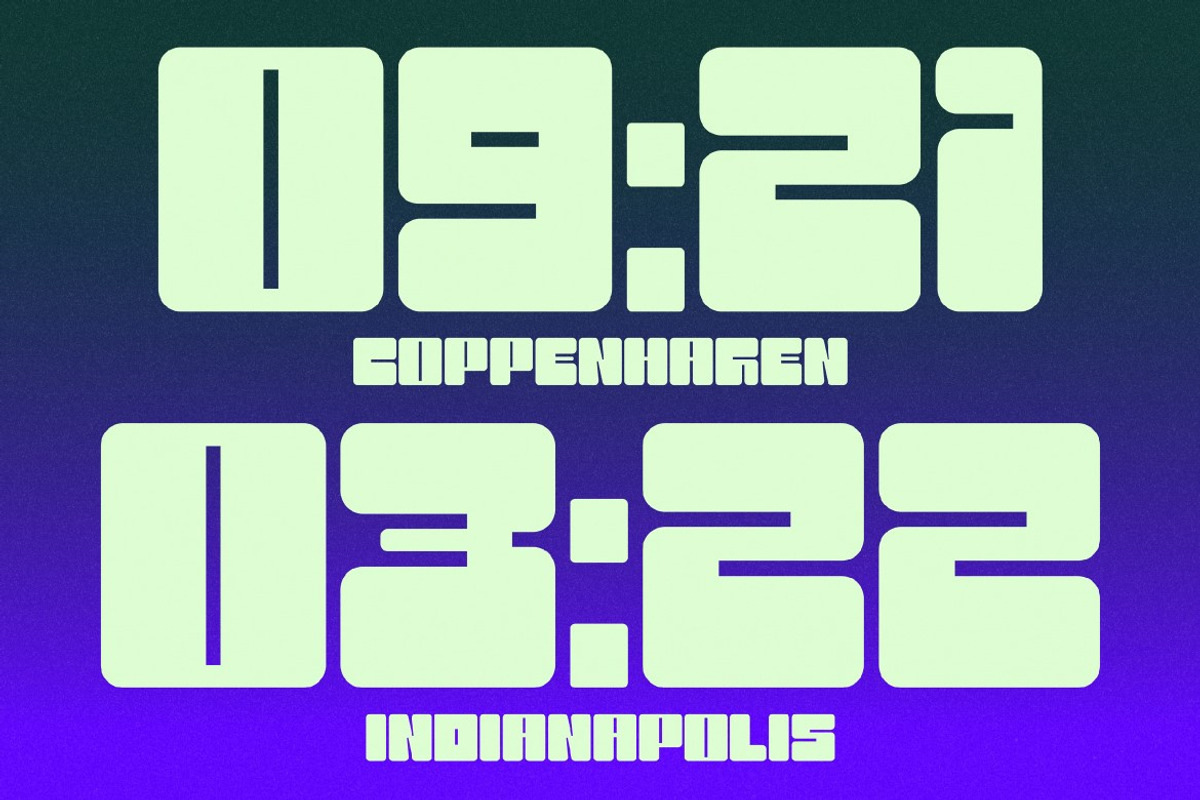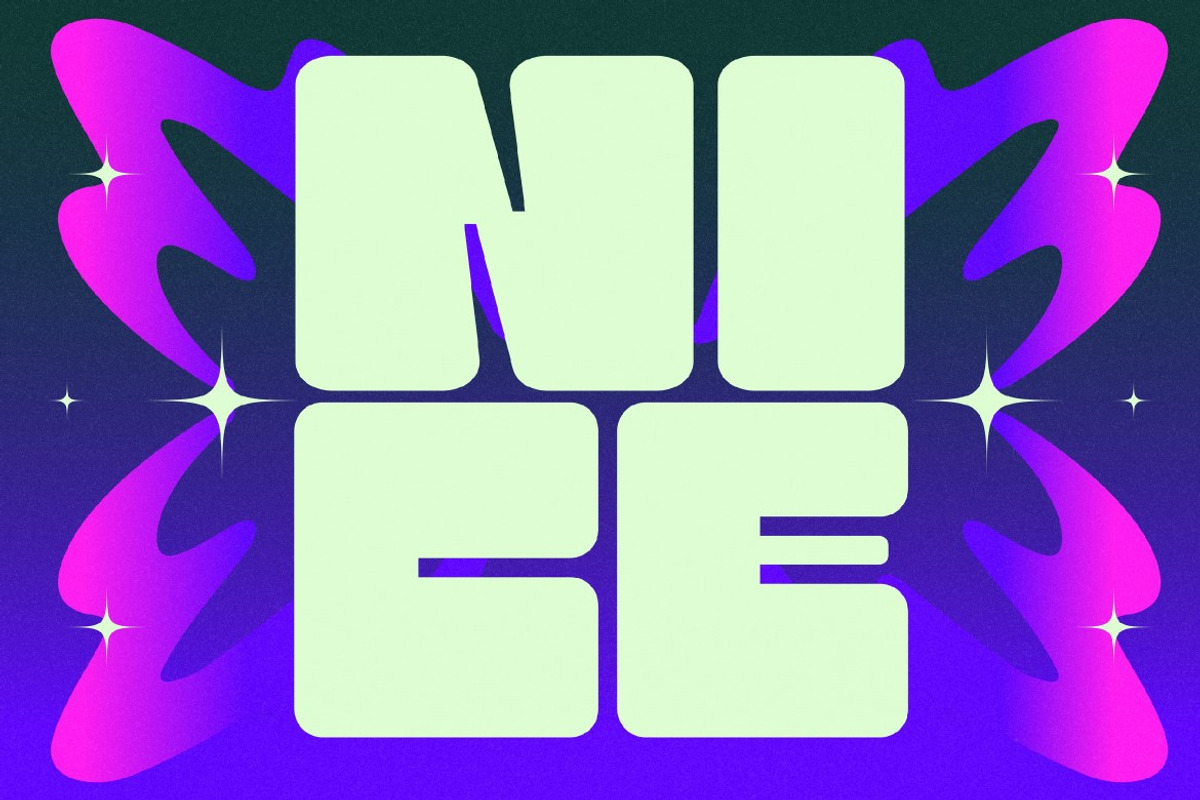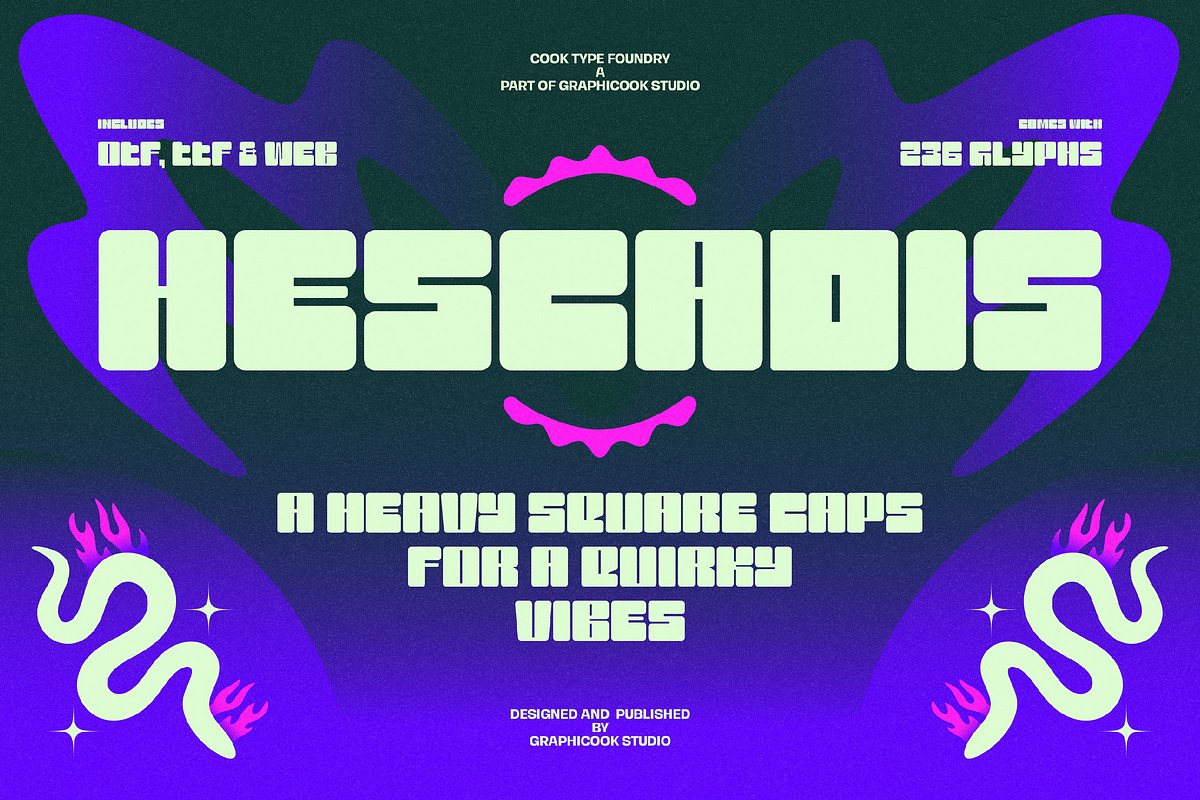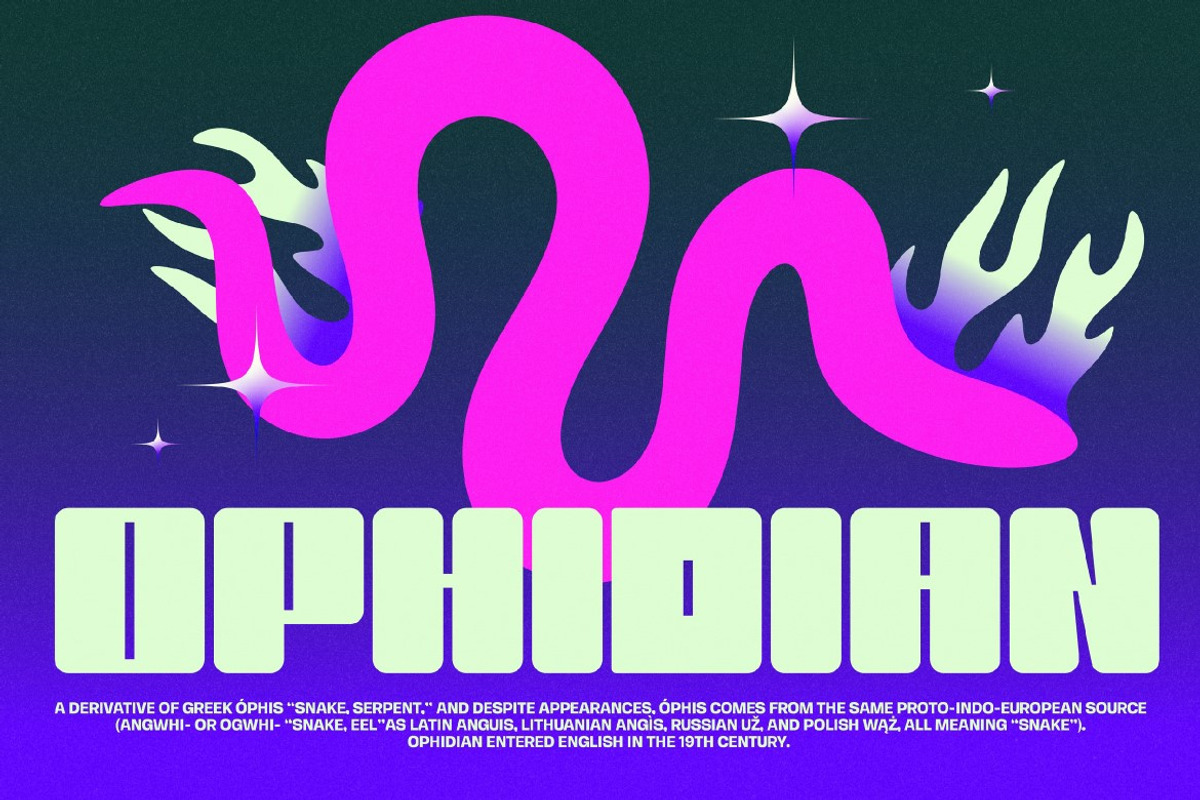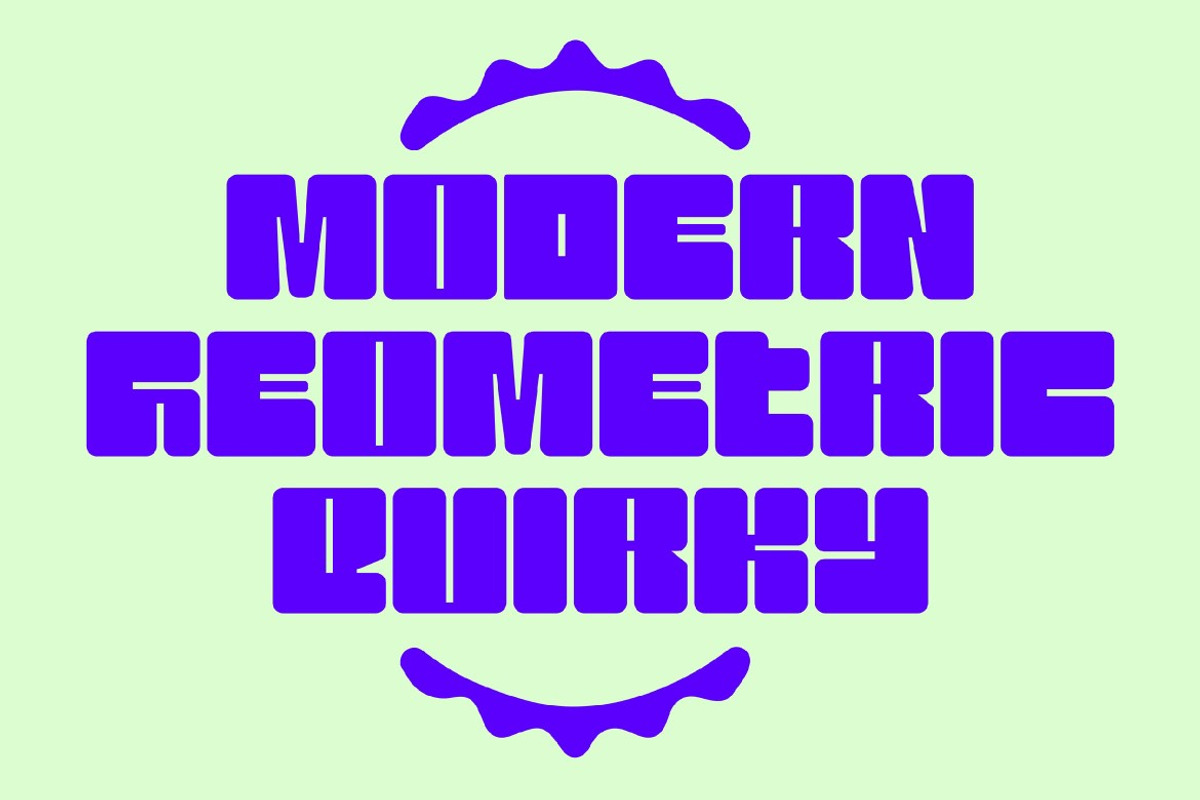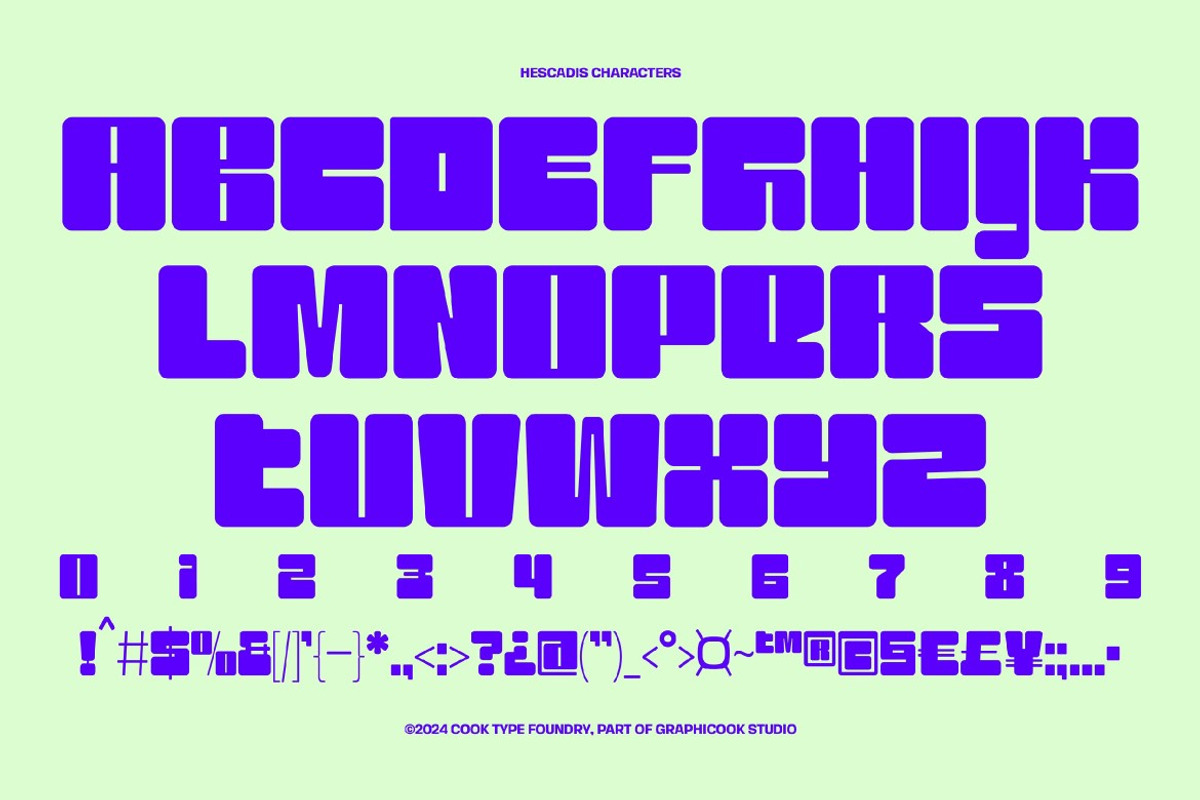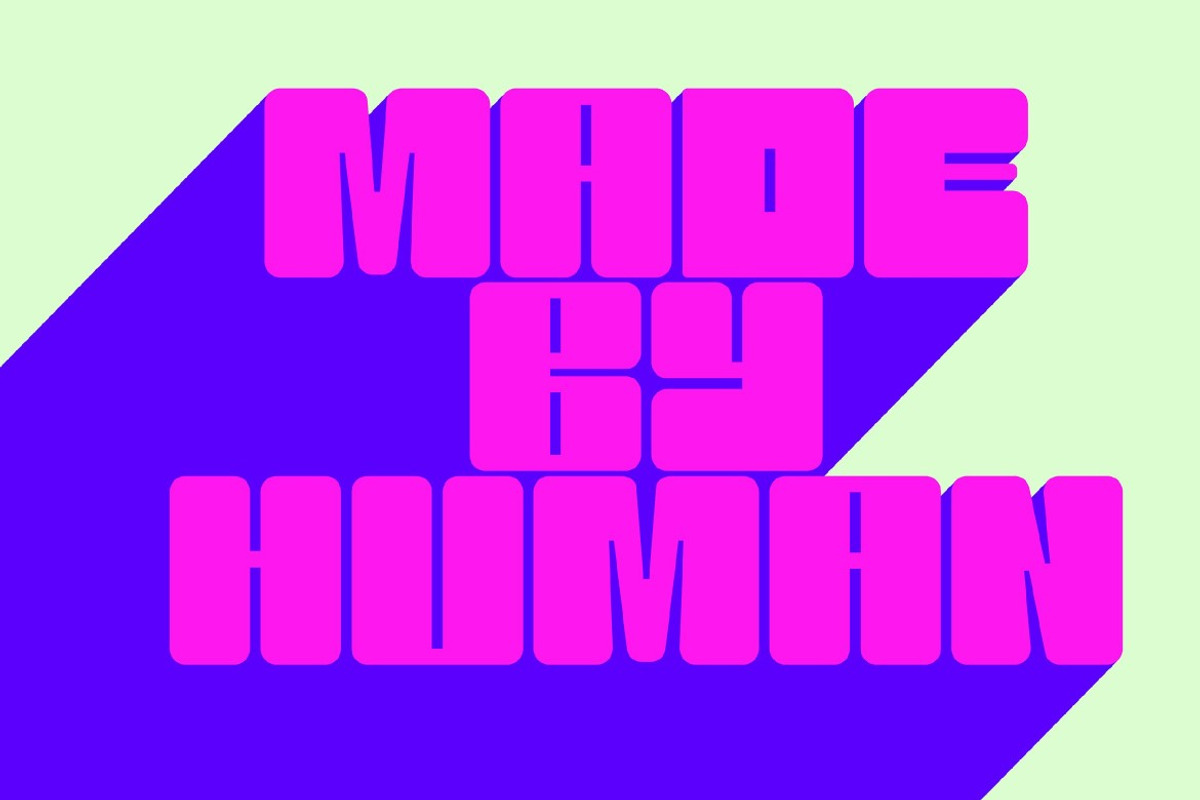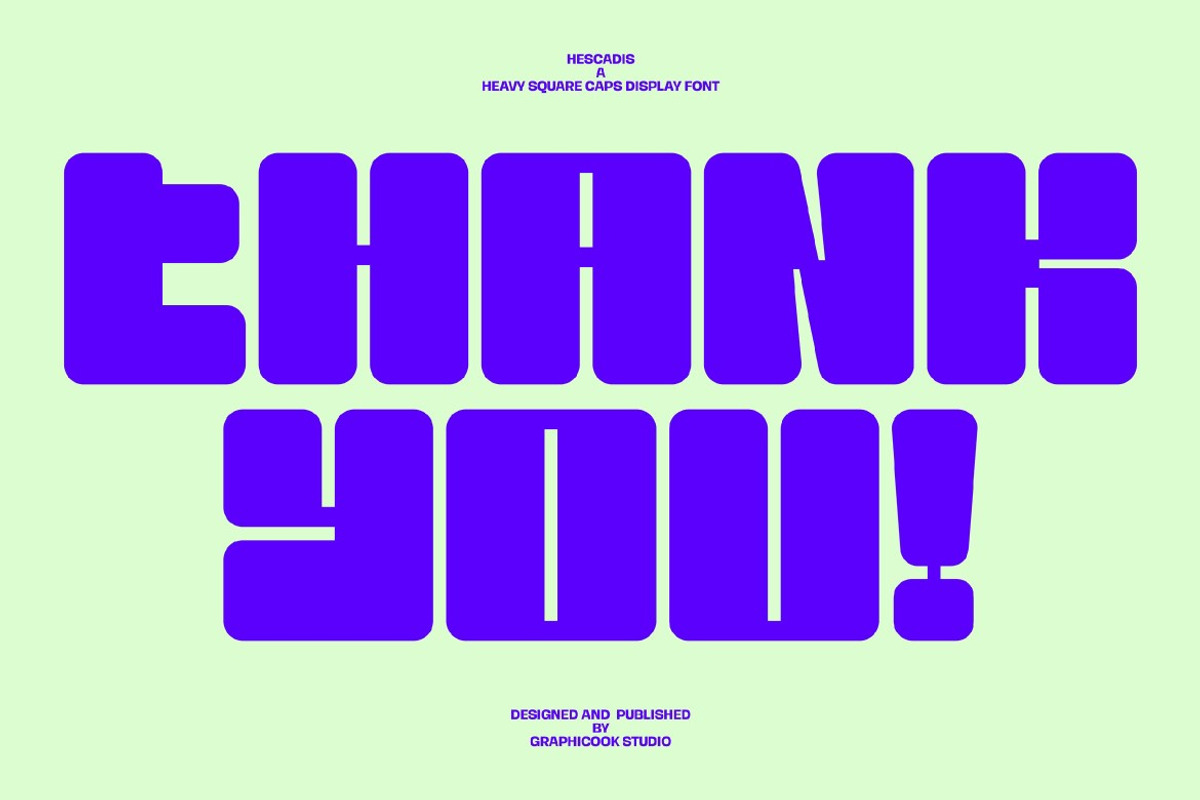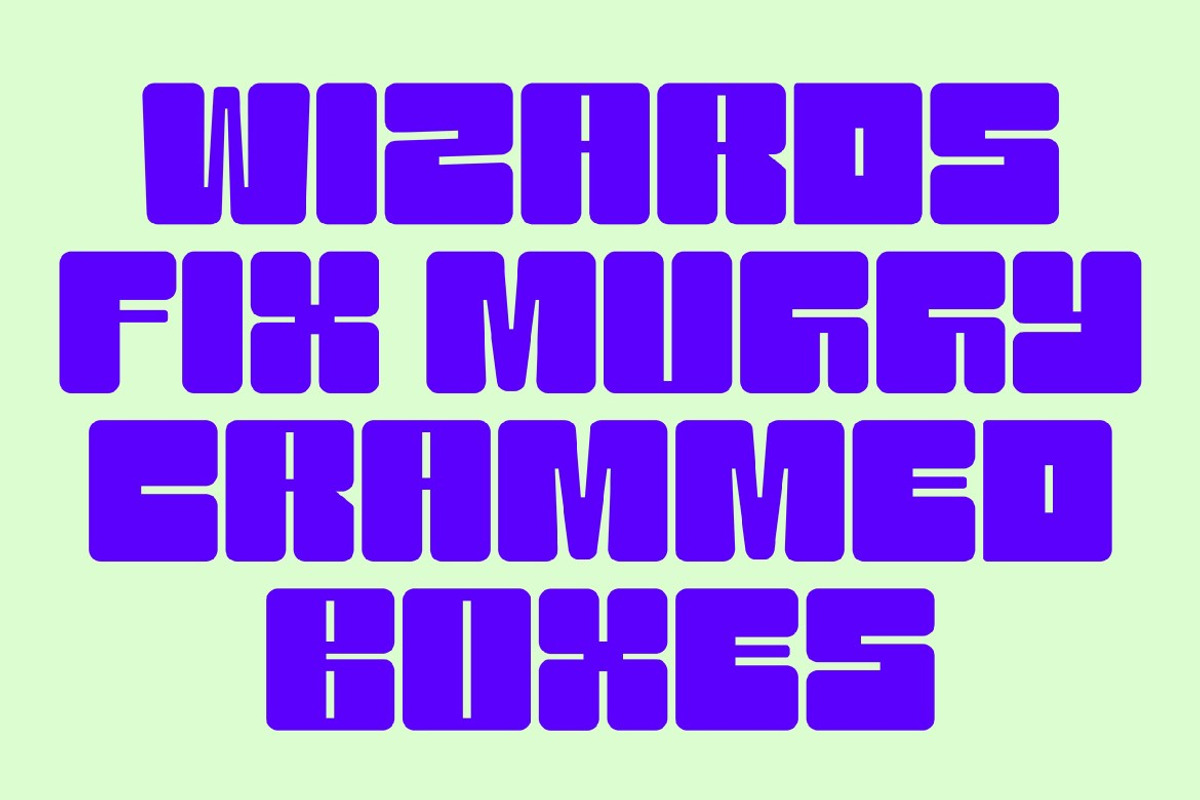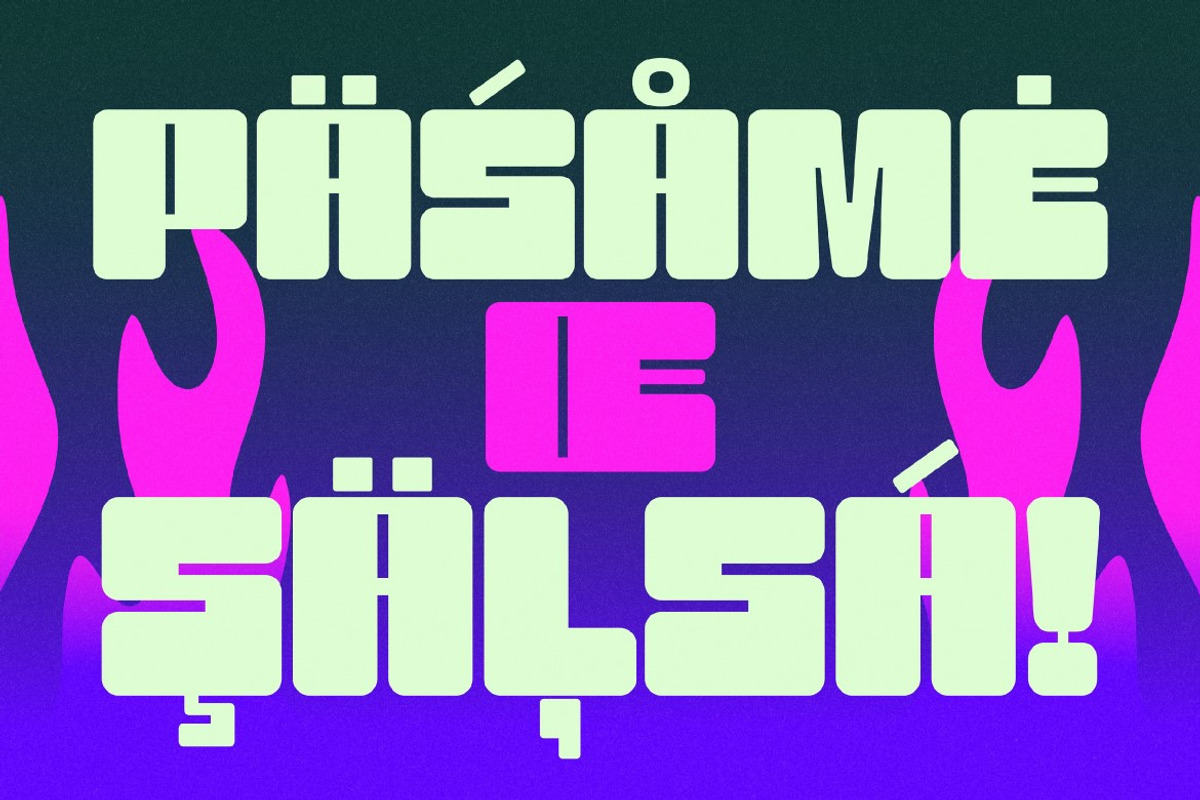
Hescadis
Hescadis is a heavy and square typeface with a touch of quirkiness, making it a great fit for posters, billboards, album covers, and packaging.
Hescadis is perfect for headlines, logotypes, magazines, packaging, quotes, movies, games, cover albums, book covers, and flyers, it's a perfect solution for creating eye-catching designs that stand out in any context.